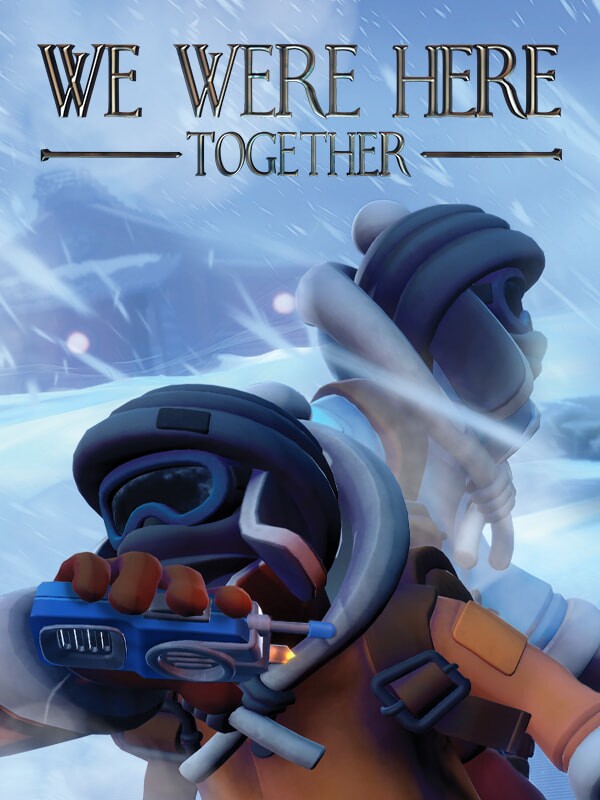
We Were Here Together Font
Action & AdventureWe Were Here Together is a puzzle-based cooperative adventure game developed by Dutch company Total Mayhem. It was released on October 10, 2019, on Steam for PC, and on June 5, 2020, for Xbox One. In the game, We Were Here Together two players take on the roles of Antarctic explorers who have become separated in an old castle, and in order to solve puzzles, they must communicate via walkie-talkies.